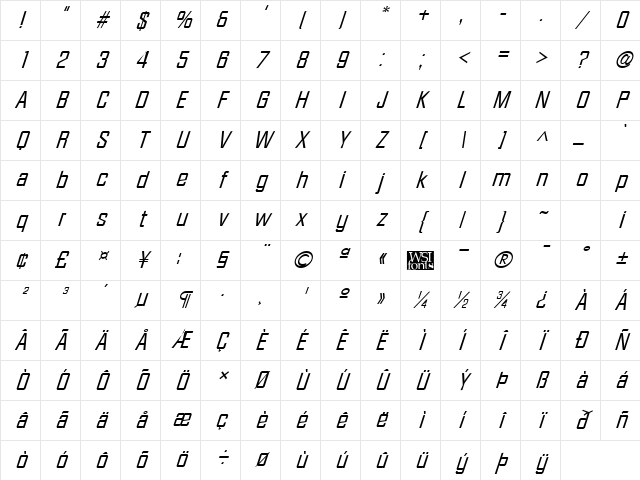
Design Context for Facet-Xitalic
Facet-Xitalic is a composed and adaptable typeface that performs quietly and consistently across a wide range of design contexts. The slanted form adds forward momentum and visual energy.